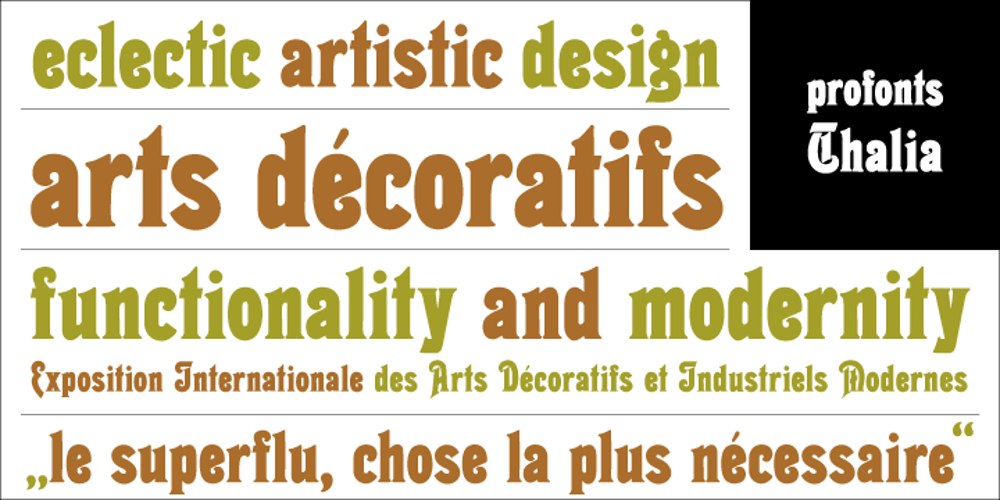
Thalia Font Family was designed by Ralph M. Unger and published by profonts. Thalia contains 1 styles and family package options. Thalia is a wonderful Artdeco typeface design reminiscent of 1900. Very likely, it was originally designed at that time. Unger redesigned the typeface based on old prints, completed the character set and expanded the typeface to cover the full Latin glyph set. Thalia is perfect for anything about theater, such as posters, programs, etc.